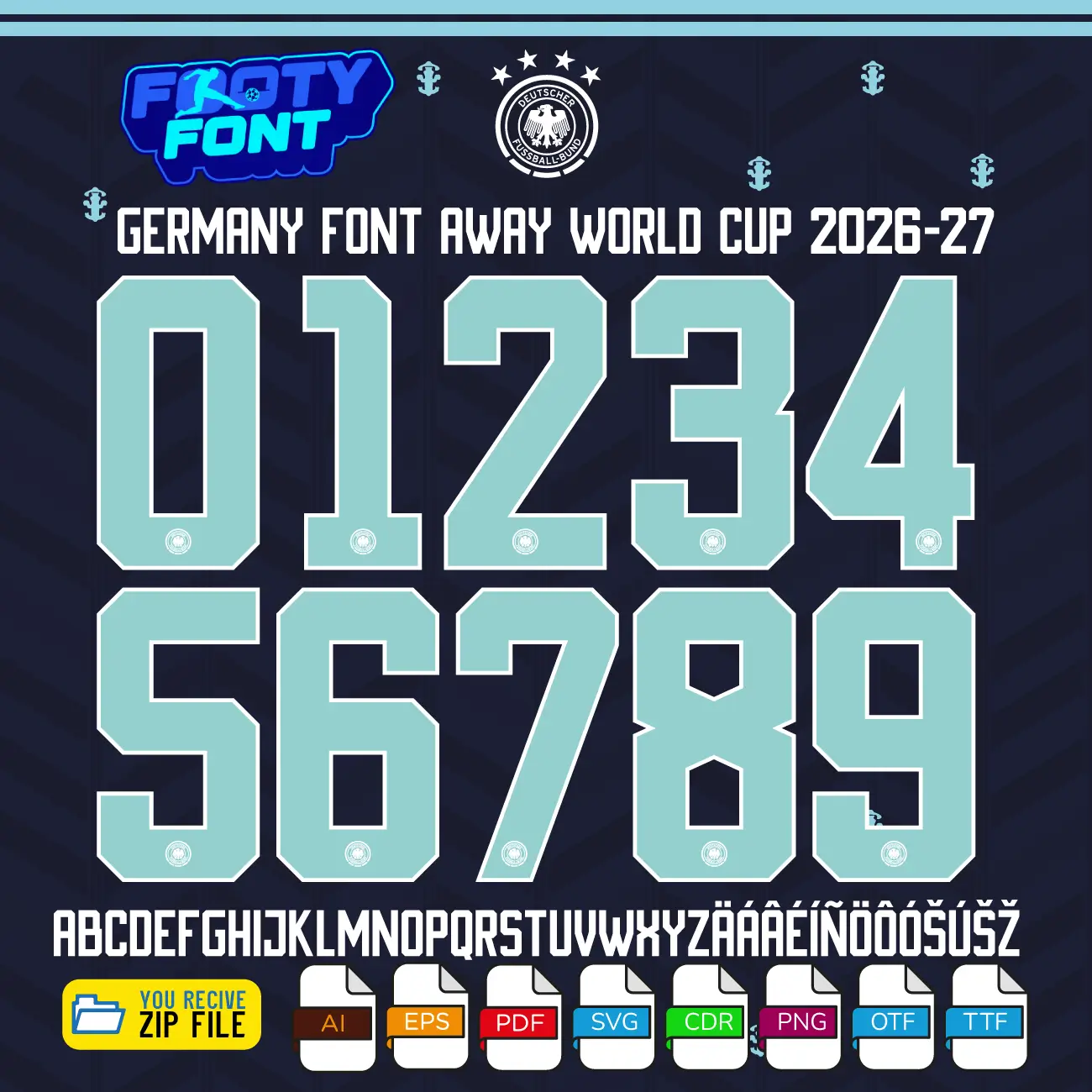
Germany 2026 Football Font
Bring the precise and modern style of Die Mannschaft to your designs with this font, inspired by the Germany 2026 World Cup away kit. This high-quality typeface is meticulously designed to replicate the sleek lettering worn by the German National Team on their dark alternative jerseys, featuring striking mint/teal numbers with crisp white outlines.
This font captures the elite style worn by Germany’s world-class stars like Joshua Kimmich, Jamal Musiala, and Florian Wirtz. As Germany prepares to compete on the world stage in 2026, this away font is an absolute must-have for fans creating custom jersey designs, digital art, streetwear, or matchday posters.
Composite cover image showing Germany players including Füllkrug and Musiala wearing the dark alternative jersey, alongside the full A-Z alphabet and 0-9 numbers for the Germany Away Font World Cup 2026.
Discover the full character set and dynamic match mockups of the Germany Away Font World Cup 2026 on the alternative kit.
Use this font to bring authentic German football style into your designs-whether for custom jersey graphics, fan merchandise, posters, or social media content.
Germany Font World Cup 2026 Away showing the complete alphabet and striking mint teal numbers.
Germany Font World Cup 2026 (Away Kit)